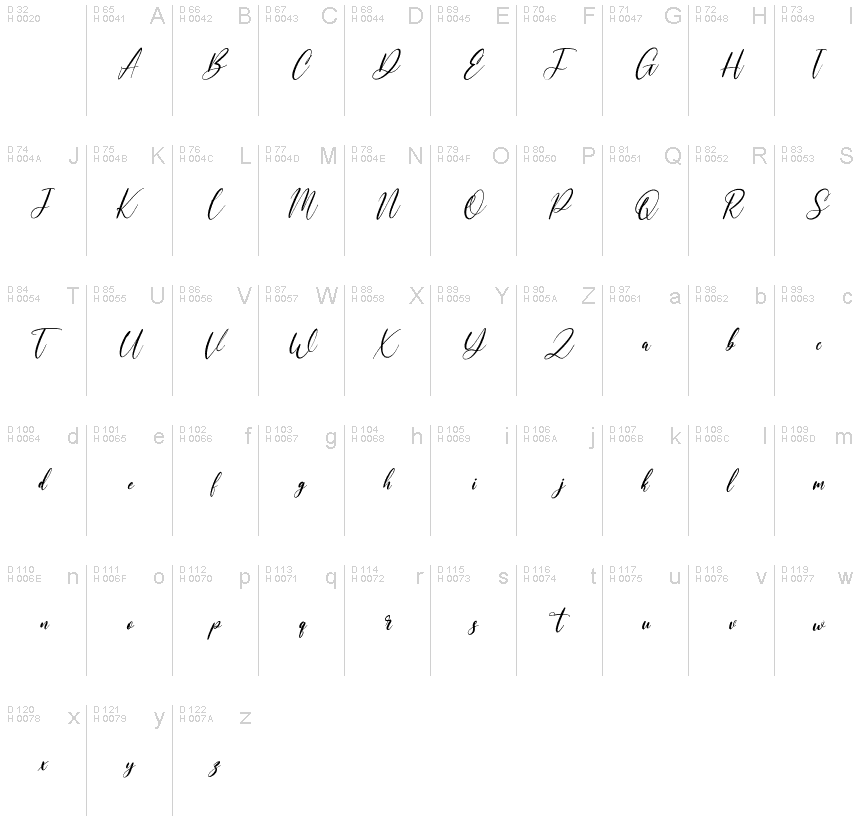
Mollafest Free Regular
Mollafest, designed by Maulana Creative, is a captivating handwritten signature font that exudes elegance and flair. With its semi-light weight and semi-condensed width, this font is perfect for adding a touch of sophistication to various projects. Enhance your invitations, greeting cards, and personal stationery with Mollafest's graceful curves and unique character. Create stunning logos that leave a lasting impression or elevate your branding materials with this versatile typeface. From fashion labels to lifestyle blogs, Mollafest is the ideal choice for any project that demands refined charm and an air of luxury.